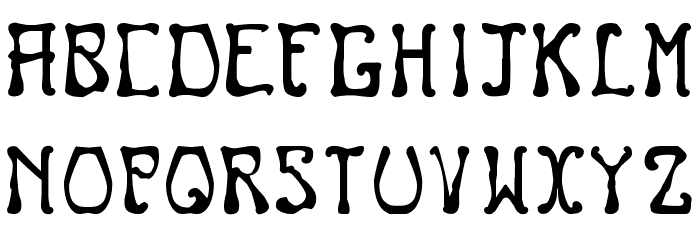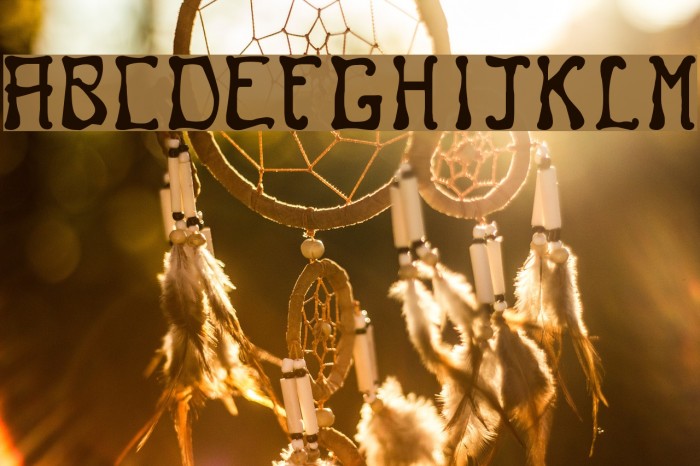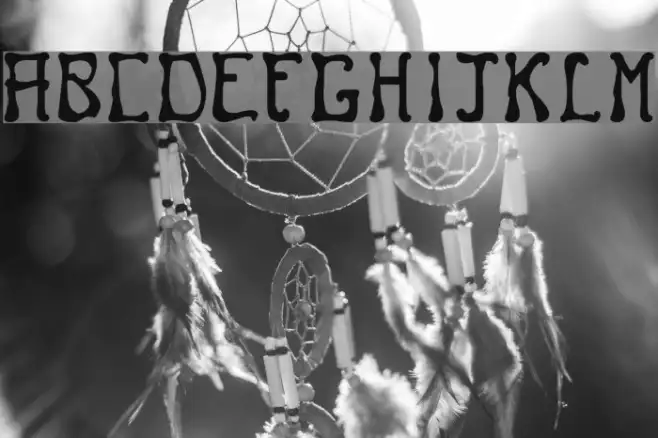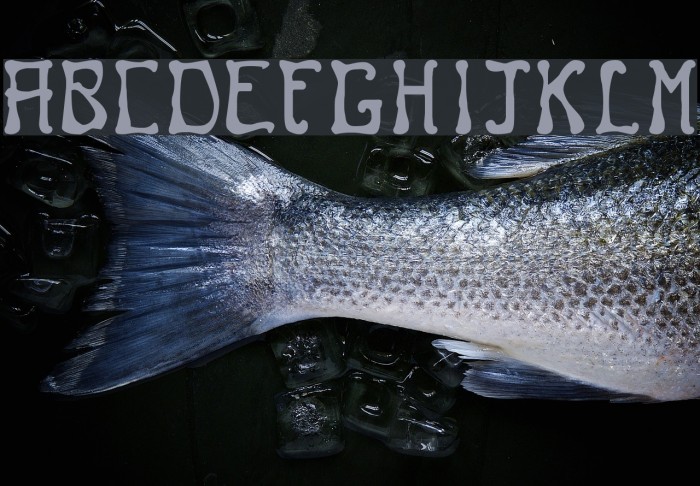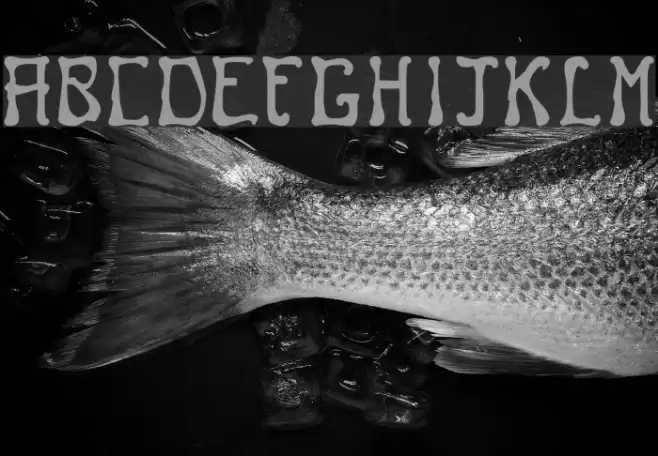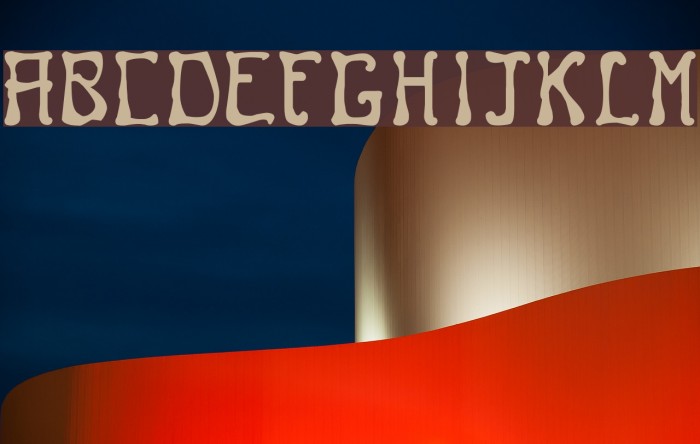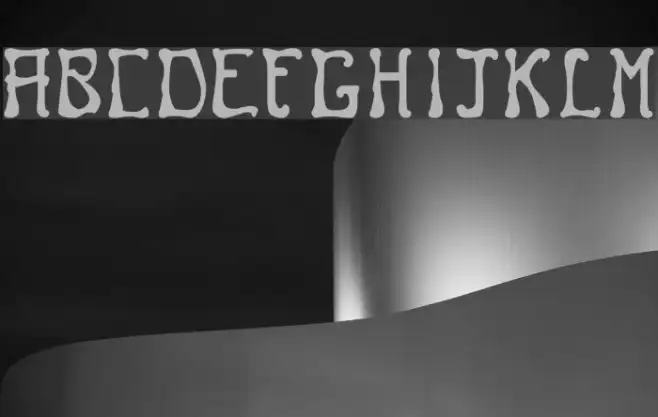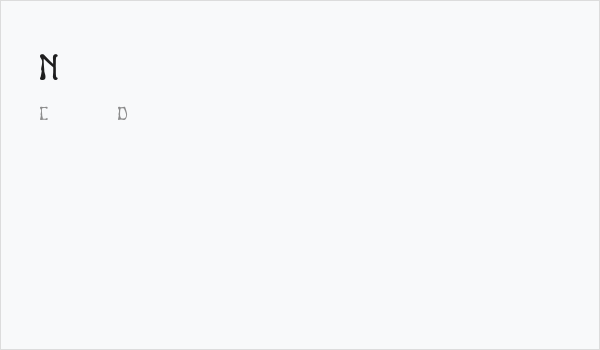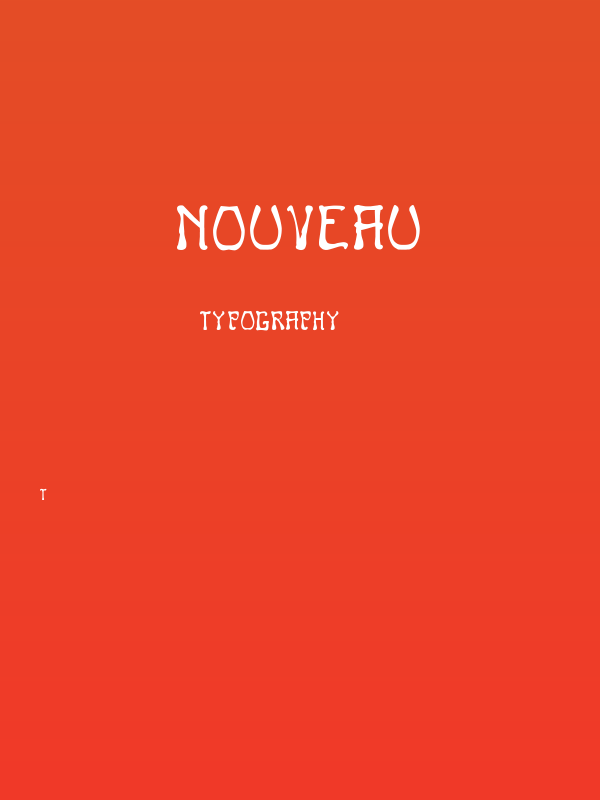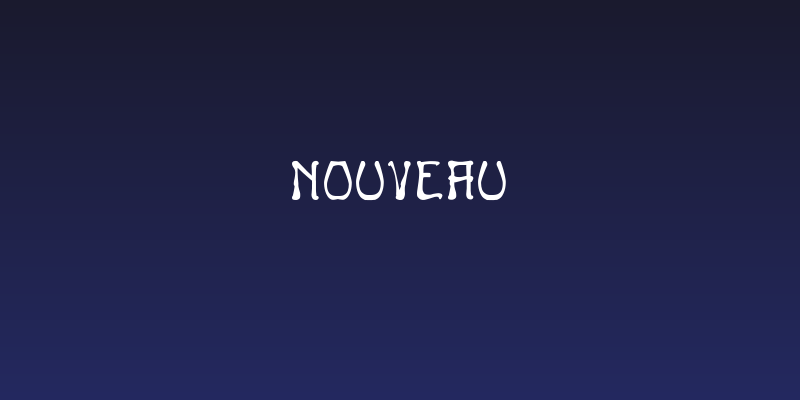
Nouveau Font
Nouveau Description
This font features a unique and artistic style, characterized by its bold and fluid strokes that mimic the organic forms found in nature. The letters have a hand-drawn appearance, with varying thicknesses that create a dynamic and lively effect. The overall design is reminiscent of the Art Nouveau movement, with its emphasis on curves and natural forms. Each character is distinct, yet they all share a cohesive aesthetic that makes the font suitable for decorative purposes. The uppercase letters are particularly striking, with their exaggerated curves and flowing lines, while the lowercase letters maintain a more subtle elegance. The numbers and special characters are crafted with the same attention to detail, ensuring a consistent look across all elements.
| Overall Style | Art Nouveau, Decorative |
| Use Case | Headlines, Logos, Decorative text |
| Proposed Projects | Ideal for projects that require a decorative touch, such as invitations, posters, and branding materials that aim to convey elegance and creativity. |